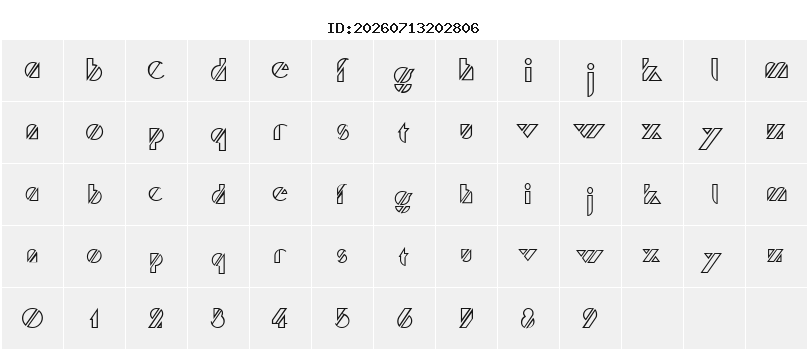
Cane Preview
• Font Name: Cane
• Font Style: Hollow
• Font ID: Alts:Cane Hollow
• Full Font Name: Cane Hollow
• Version: 1.0/1995: 2.0/2001
• PostScript Name: Cane-Hollow
• Character Count: 225
About Cane.ttf
Cane.ttf is a modern, elegant sans-serif font designed for ultimate readability and visual harmony. Perfect for branding, headlines, web design, and print materials.